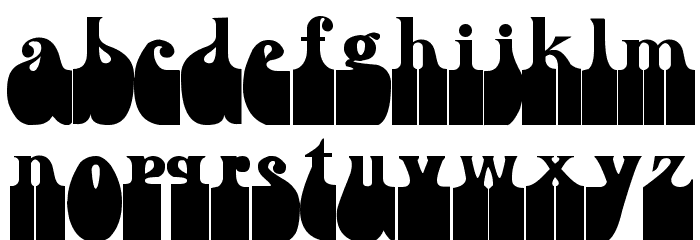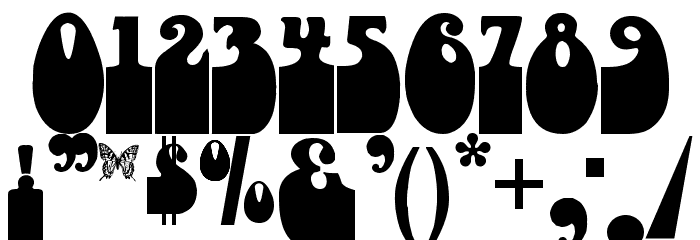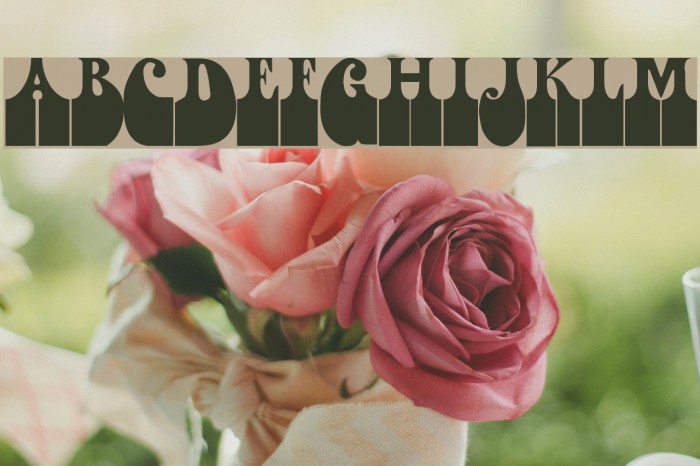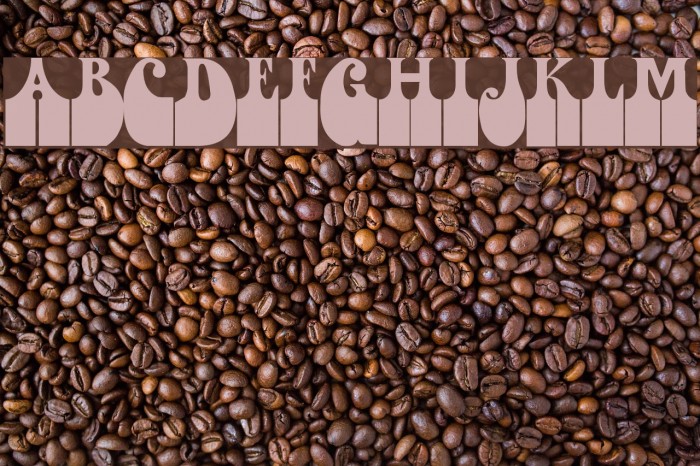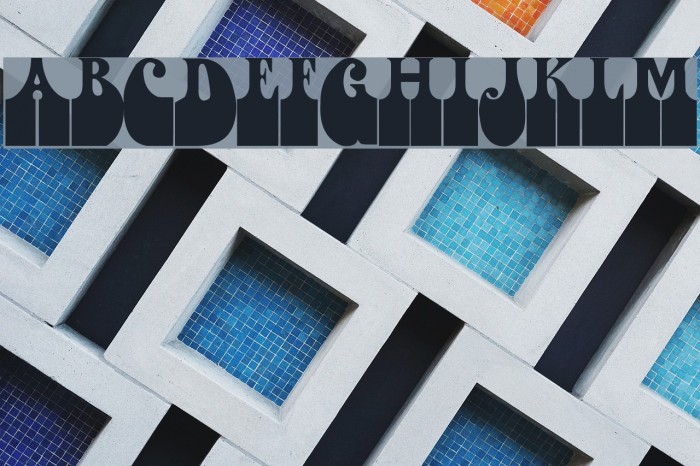
Dogsmoke Thunder Font
This font features a bold and dramatic style with thick, blocky letterforms that create a strong visual impact. The characters are highly stylized with a unique blend of sharp angles and rounded edges, giving it a distinctive and modern appearance. The uppercase and lowercase letters maintain a consistent weight, while the numerals and special characters complement the overall design. The font's boldness and decorative elements make it ideal for attention-grabbing headlines and creative projects. Its artistic flair and unique character shapes lend themselves well to branding and logo design, where a memorable and striking typeface is desired.
A bold, decorative font with thick, blocky letterforms and unique stylization.
- Proposed Projects: Ideal for branding, logo design, posters, and headlines where a strong visual impact is needed.